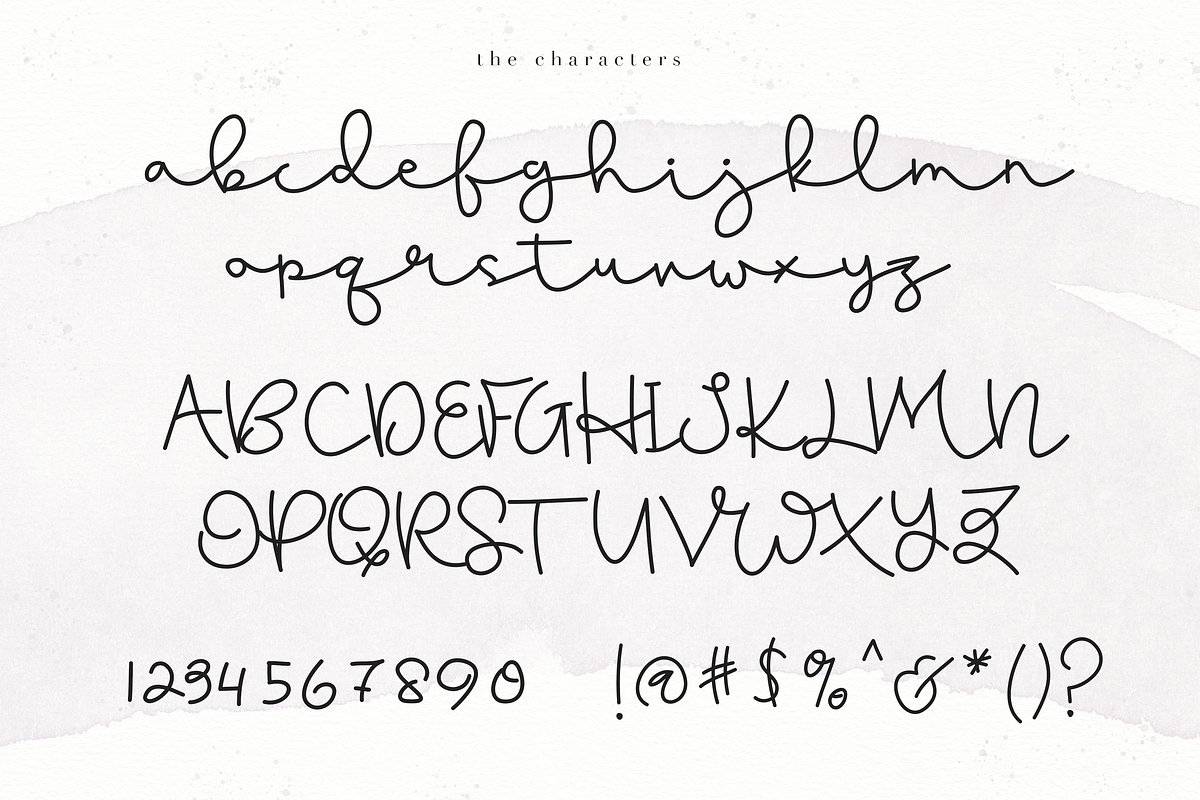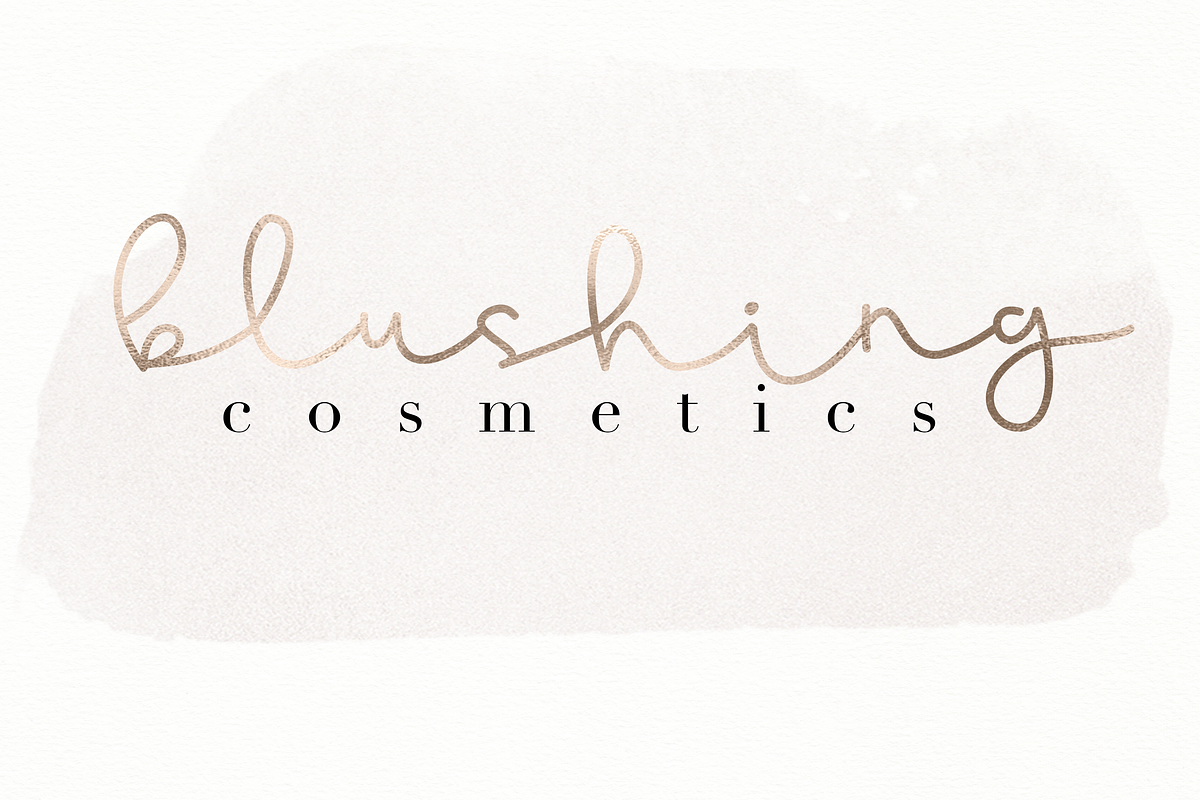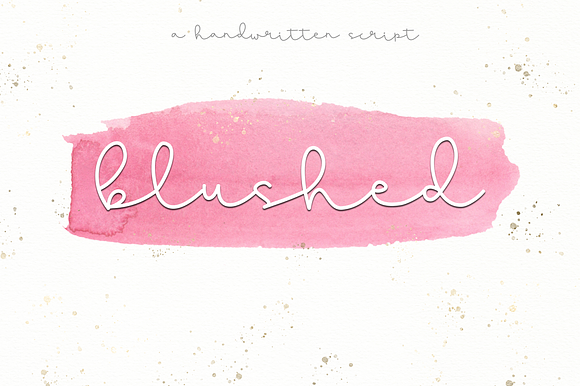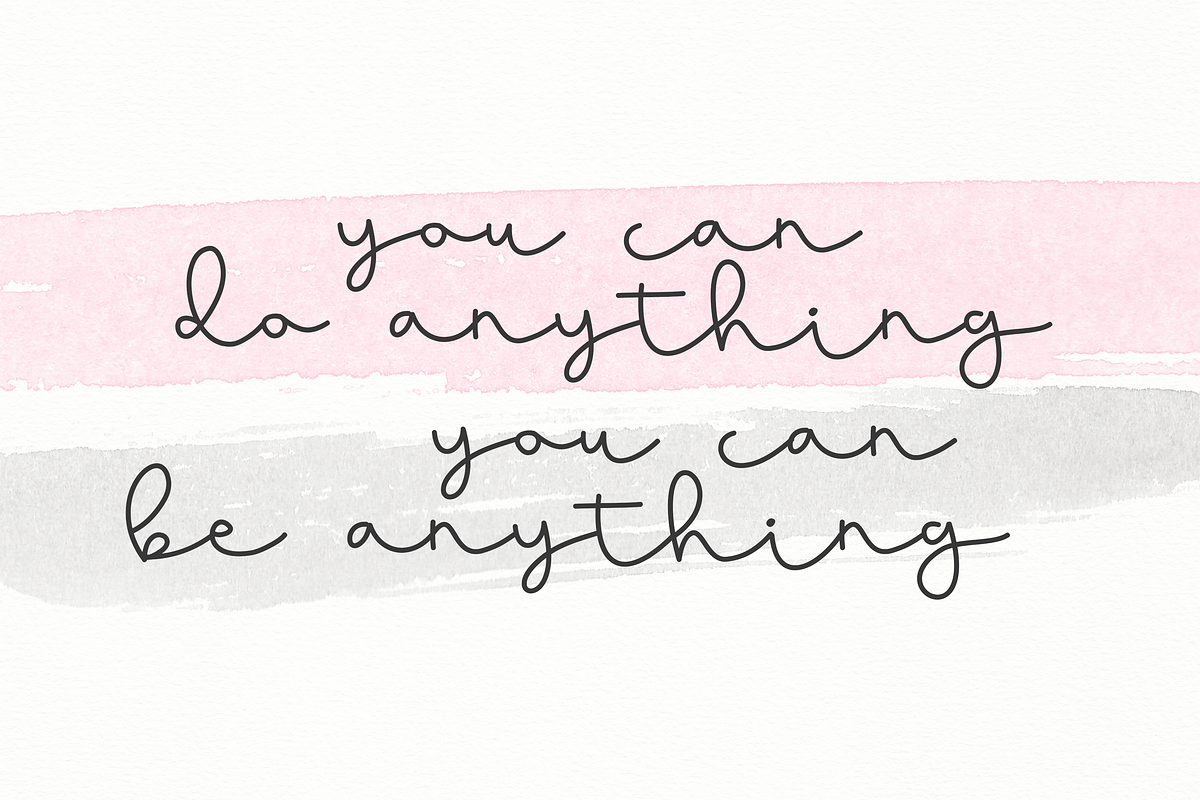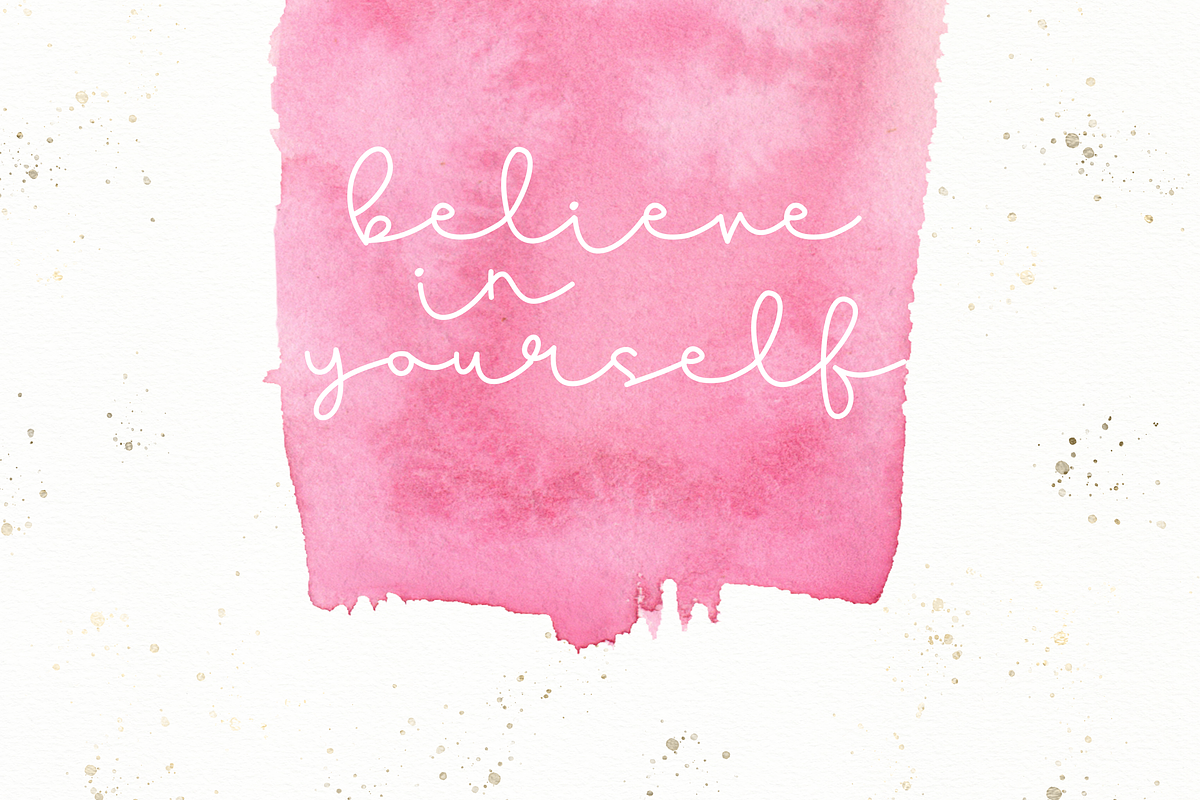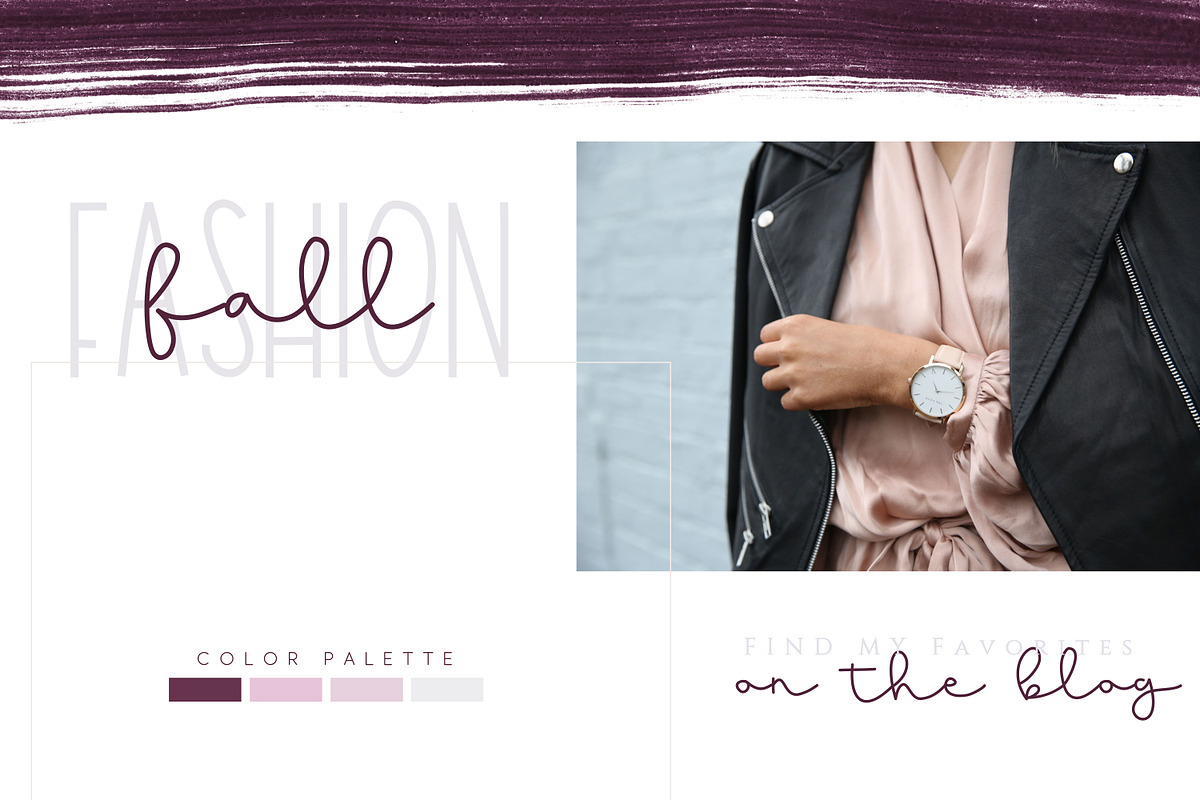
Blushed - Handwritten Script Font
Blushed is a cute and elegant handwritten font. It is perfect for wedding announcements, blogs, logos and advertisements.
- There are no extra ligatures - I like to keep it simple.